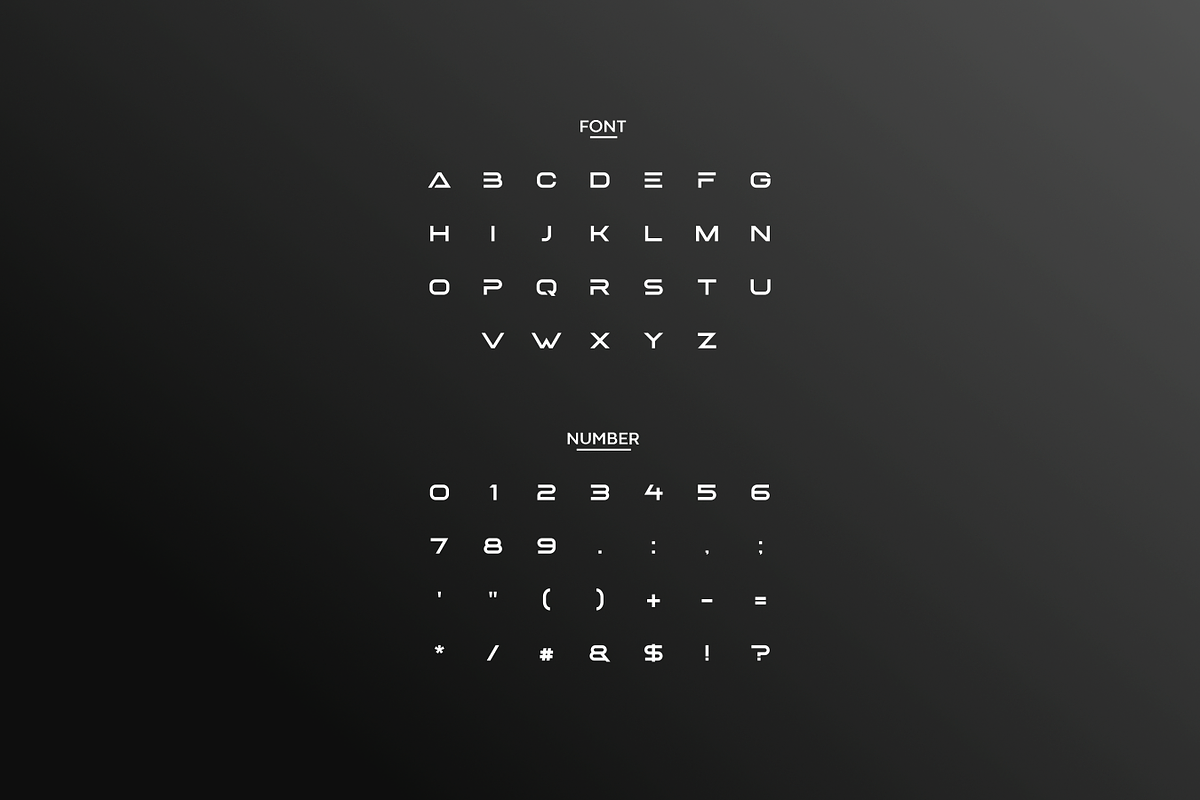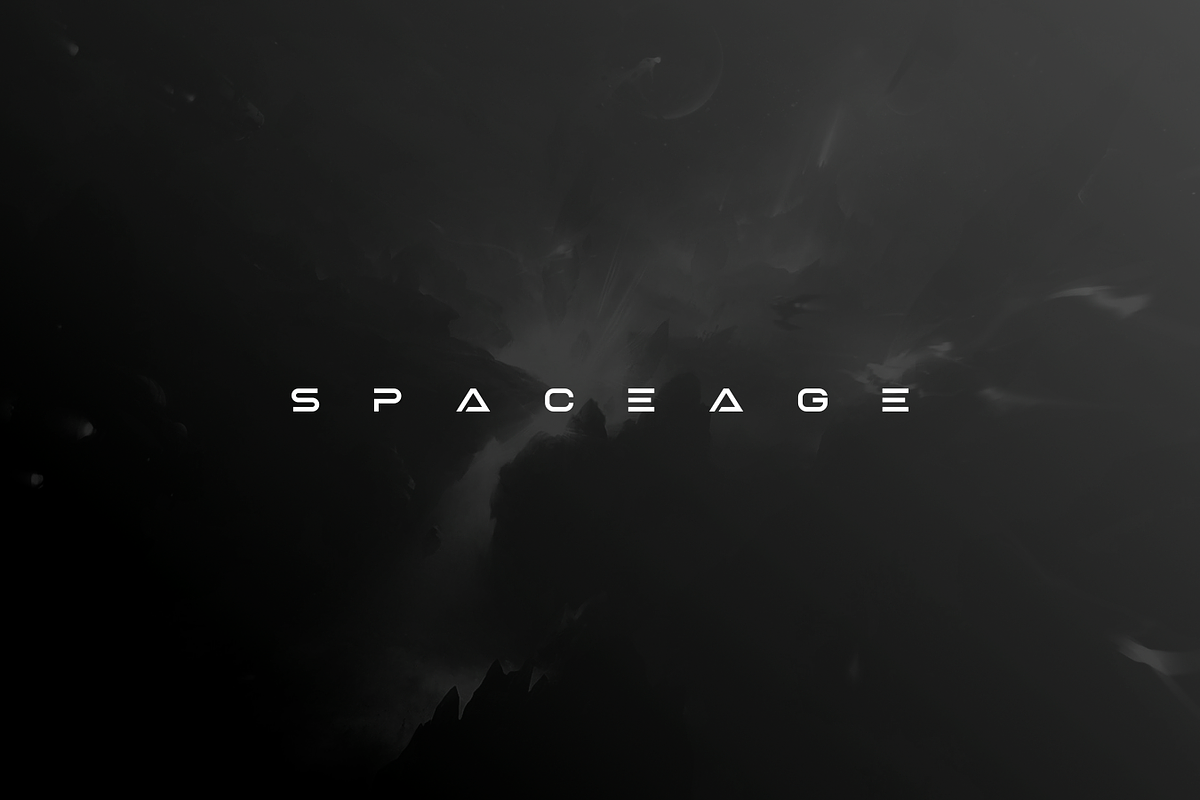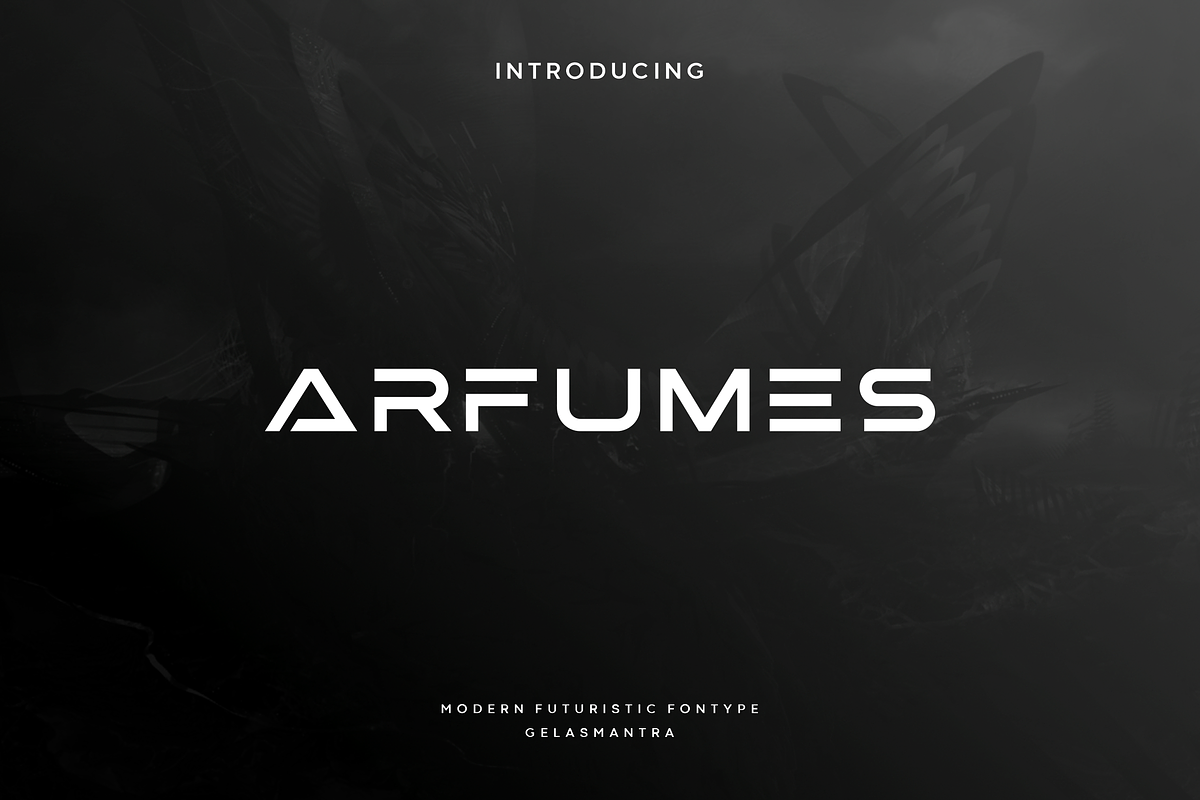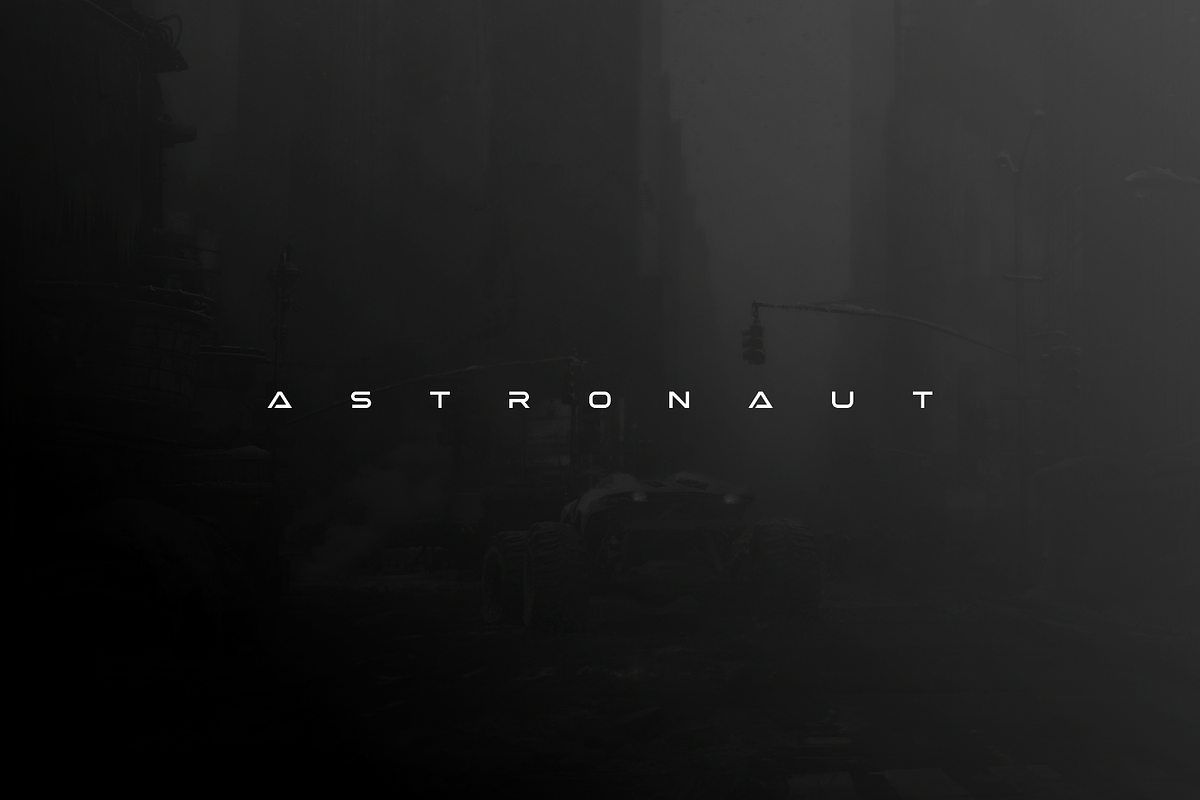
Arfumes
Arfumes is a modern, elegant and futuristic look font. This font would be ideal for writing web designs, titles, business cards, or just about anything else that requires a unique touch. The futuristic feel is displayed more prominently so that it will look very suitable for electronic and robotic products, electrical products and many products related to the future.